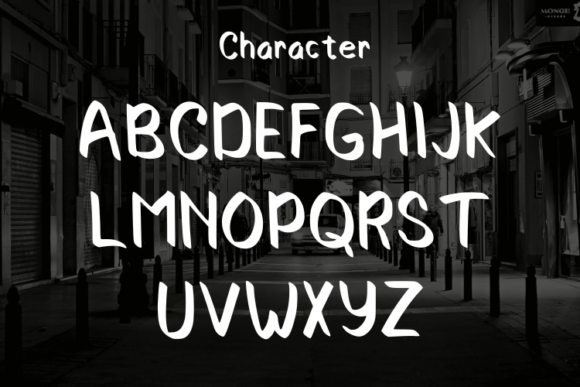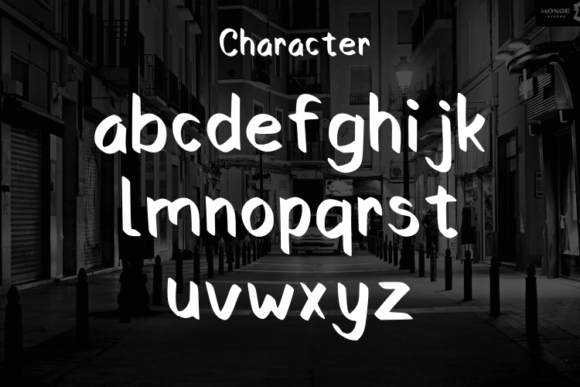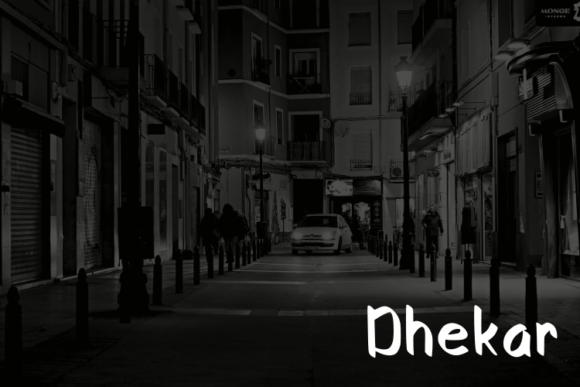
Dhekar Font: Elevate Your Designs with Elegance and Sophistication
In the world of typography, a font can make or break a design. For designers and crafters seeking to add a touch of luxury and modernity to their work, Dhekar Font is an excellent choice. This script typeface boasts a simple yet sophisticated style, perfect for creating elegant and refined designs.
The Characteristics of Dhekar Font
Dhekar Font is a script typeface that exudes a sense of simplicity and modernity. Its clean lines and minimalist approach make it an ideal choice for designs that require a touch of sophistication. The font’s simple style allows it to be versatile, making it suitable for a wide range of applications, from luxurious logos to fashion brand designs.
Perfect for Elegant and Luxurious Designs
Dhekar Font is perfect for designers looking to create elegant and luxurious designs. Its modern look and feel make it an excellent choice for:
- Logo Design: Create a lasting impression with a luxurious logo that exudes sophistication and elegance.
- Book or Movie Design Titles: Add a touch of refinement to your book or movie titles with Dhekar Font’s simple yet elegant style.
- Fashion Brands: Elevate your fashion brand’s design with a font that screams luxury and modernity.
- Magazines: Add a touch of sophistication to your magazine designs with Dhekar Font’s clean and minimalist approach.
- Clothing: Create stylish and elegant clothing designs with Dhekar Font’s modern look and feel.
- Fonts: Use Dhekar Font as a standalone font or combine it with other fonts to create a unique and elegant design.
- Quotes: Add a touch of luxury and sophistication to your quotes with Dhekar Font’s elegant style.
Why Choose Dhekar Font?
So, why choose Dhekar Font over other fonts? Here are a few reasons:
- Versatility: Dhekar Font is a versatile font that can be used for a wide range of applications, from logos to magazine designs.
- Elegance: Dhekar Font’s simple yet elegant style makes it perfect for designs that require a touch of sophistication.
- Modernity: Dhekar Font’s modern look and feel make it an excellent choice for designers looking to create contemporary designs.
- Easy to Read: Dhekar Font is easy to read, making it perfect for designs that require a clear and concise message.
Tips for Using Dhekar Font
Here are a few tips for using Dhekar Font:
- Use it as a Title Font: Dhekar Font is perfect for use as a title font, adding a touch of elegance and sophistication to your designs.
- Combine it with Other Fonts: Combine Dhekar Font with other fonts to create a unique and elegant design.
- Experiment with Colors: Experiment with different colors to find the perfect combination that complements Dhekar Font’s elegant style.
In conclusion, Dhekar Font is an excellent choice for designers and crafters looking to add a touch of elegance and sophistication to their work. Its simple yet modern style makes it perfect for a wide range of applications, from luxurious logos to fashion brand designs. With its versatility, elegance, and modernity, Dhekar Font is sure to elevate your designs to the next level.